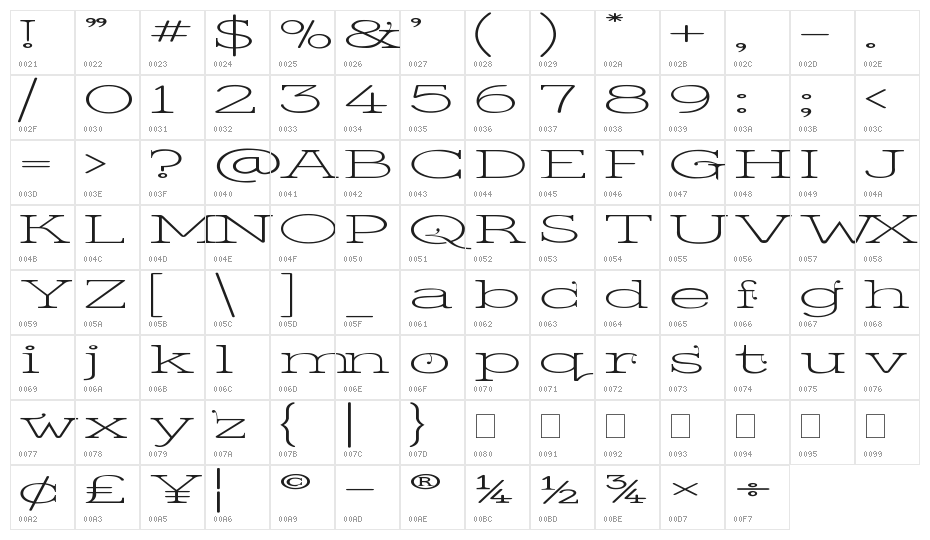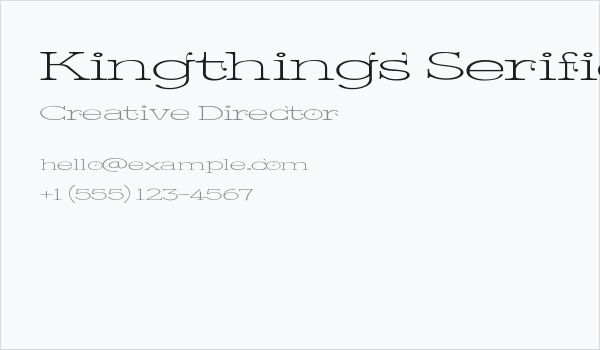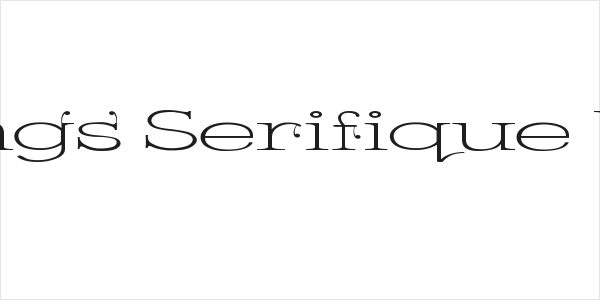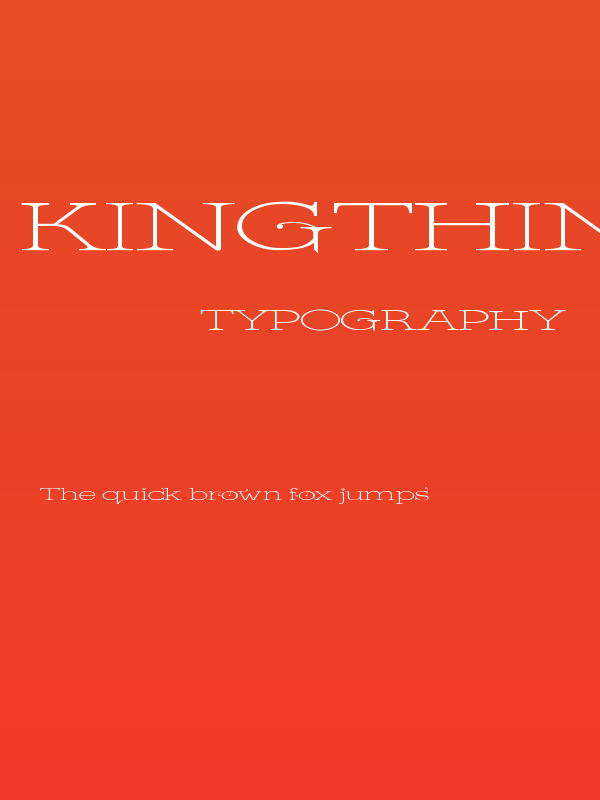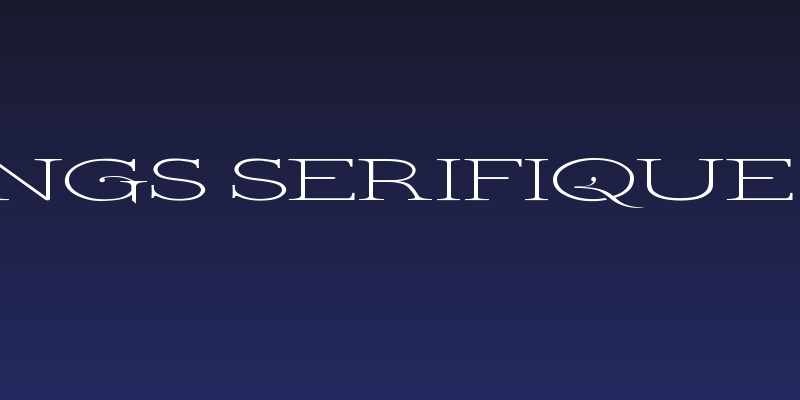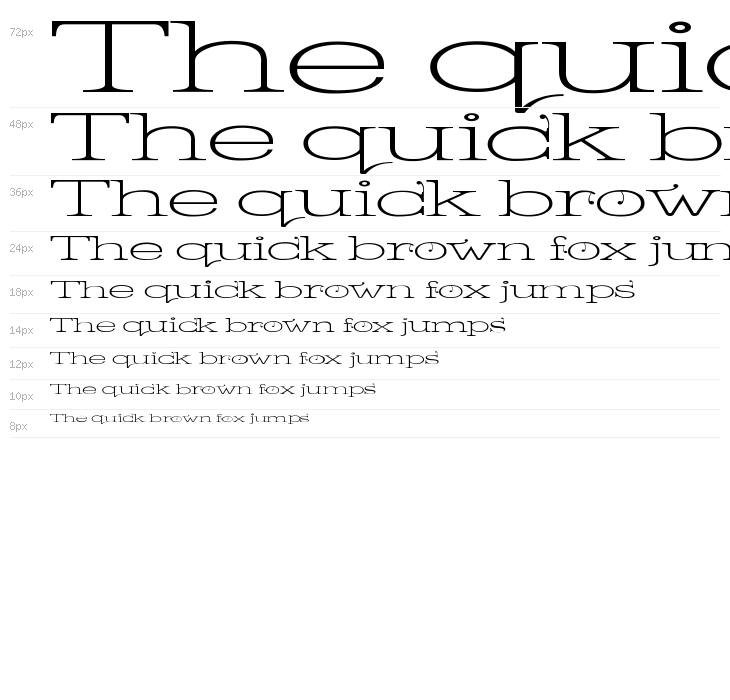
Kingthings Serifique UL Wide Font
Kingthings Serifique UL Wide Description
This font exhibits a unique blend of elegance and playfulness, characterized by its distinctive serifs and wide letterforms. The uppercase letters are bold and commanding, while the lowercase letters maintain a consistent flow with subtle curves. The numerals are clear and easily distinguishable, making them suitable for various applications. Special characters are crafted with attention to detail, adding a whimsical touch to the overall design. The font's wide spacing and uniform stroke width contribute to its readability, making it ideal for both display and text purposes.
| Proposed Projects | Ideal for branding, editorial design, invitations, and decorative headlines. |